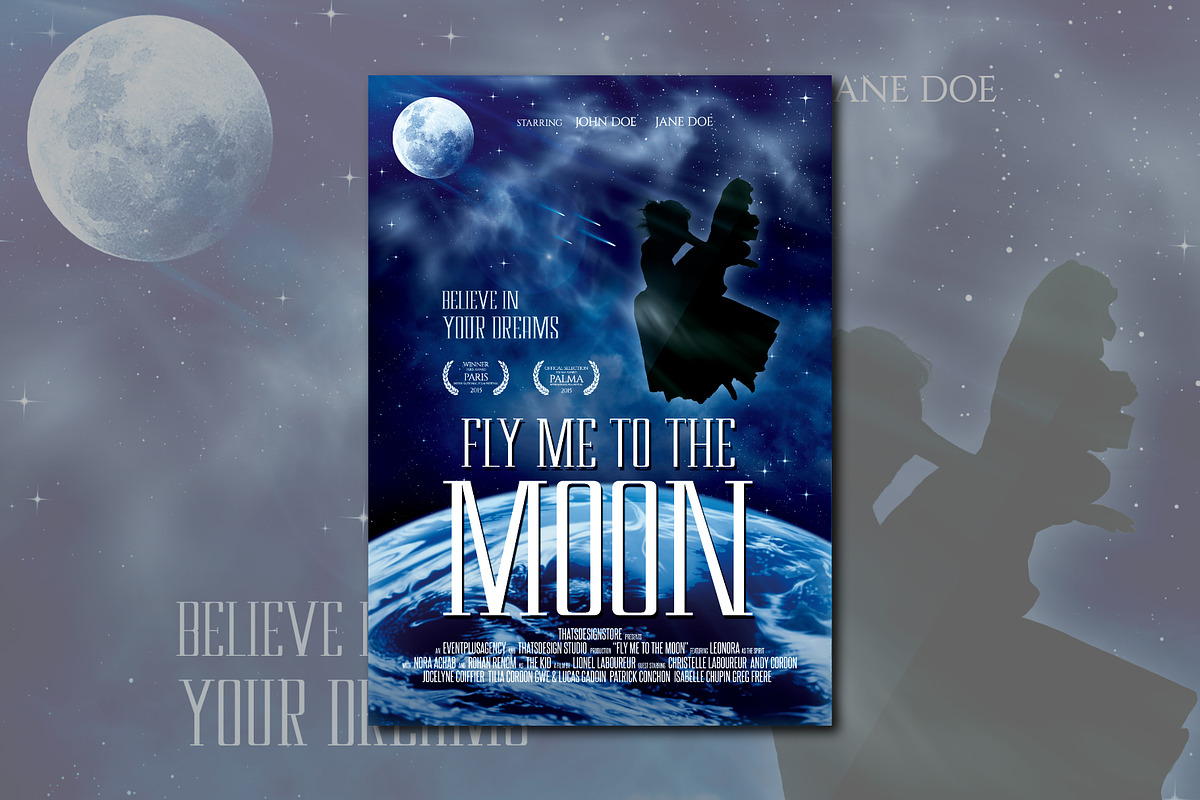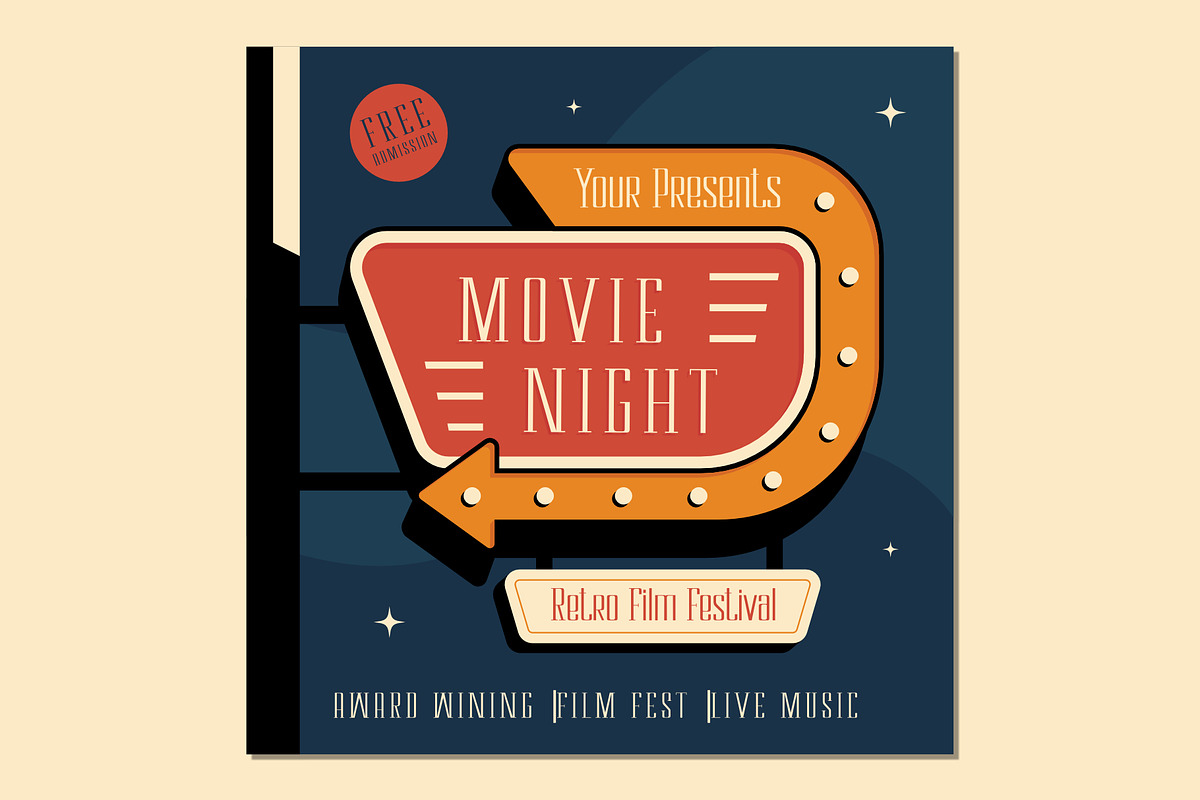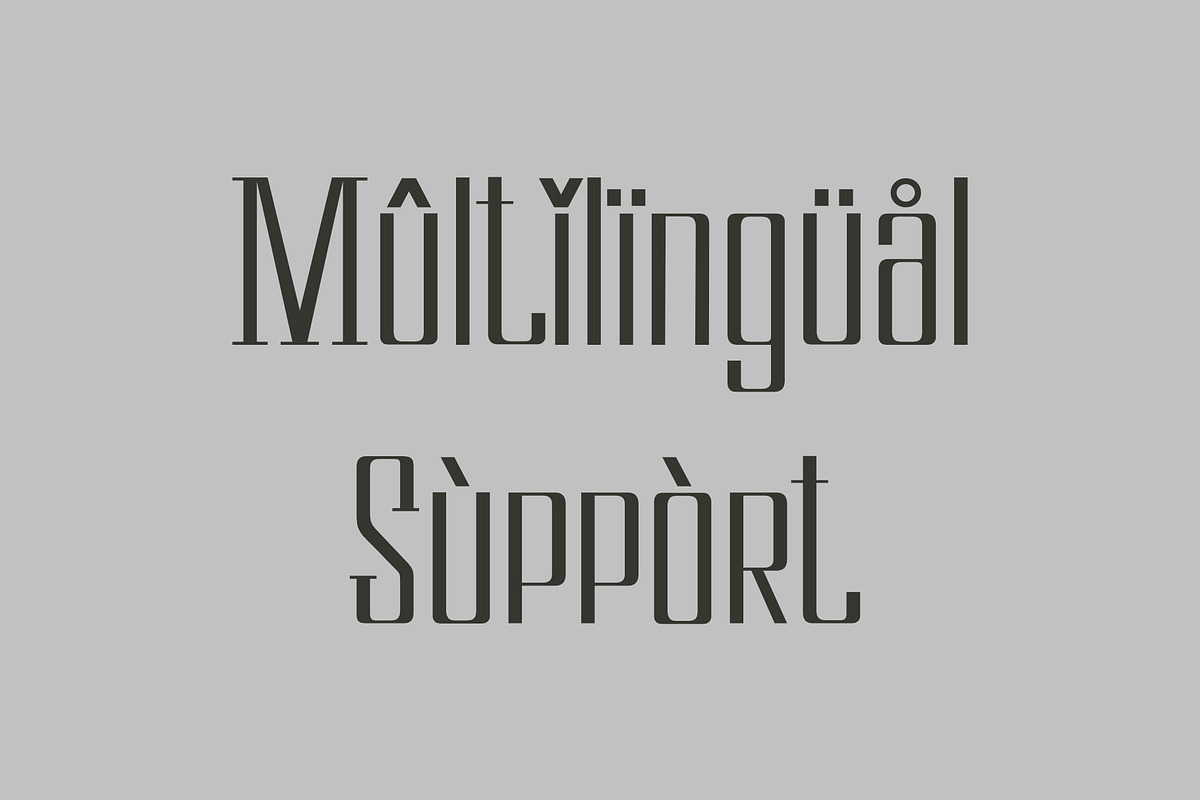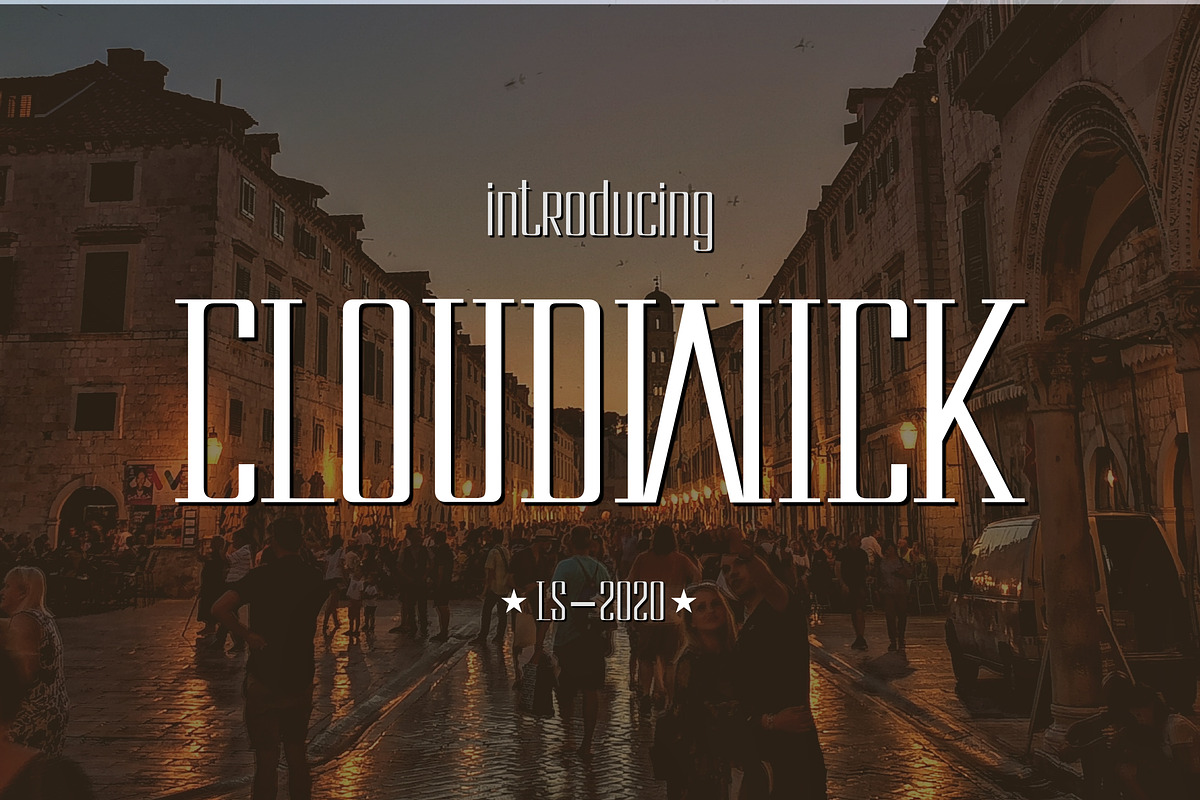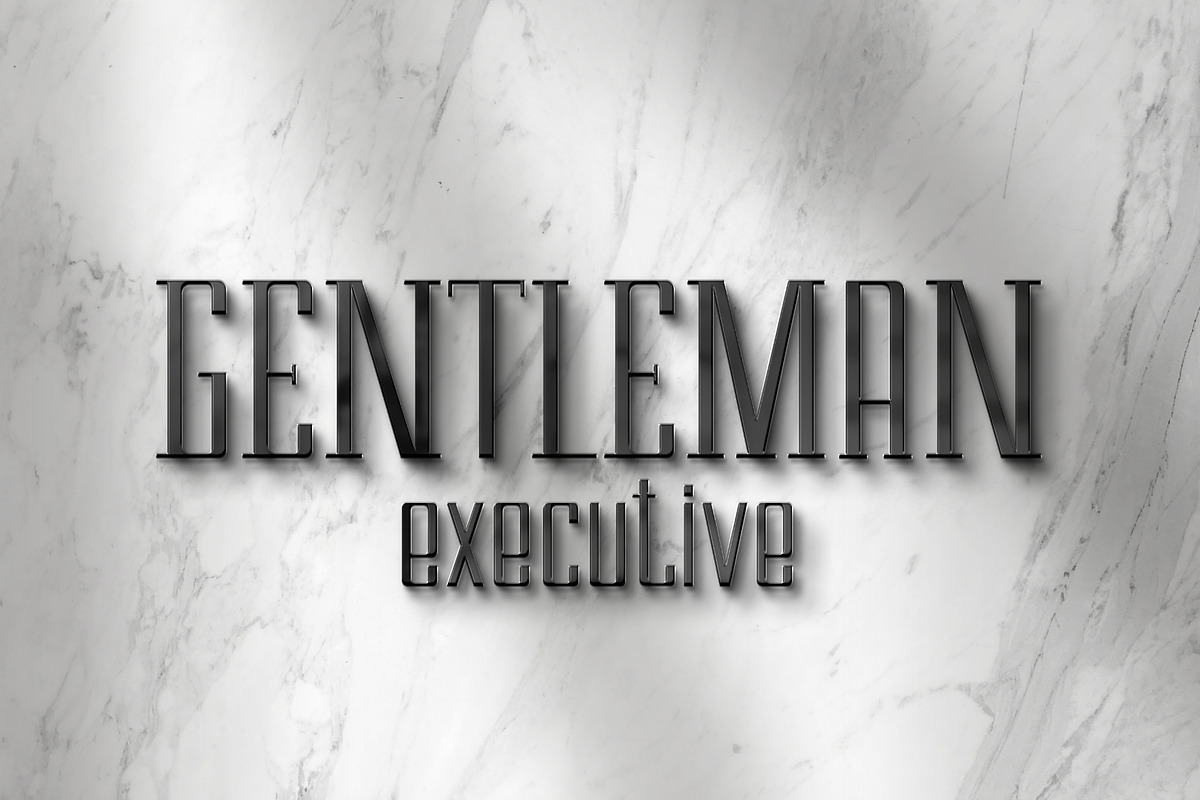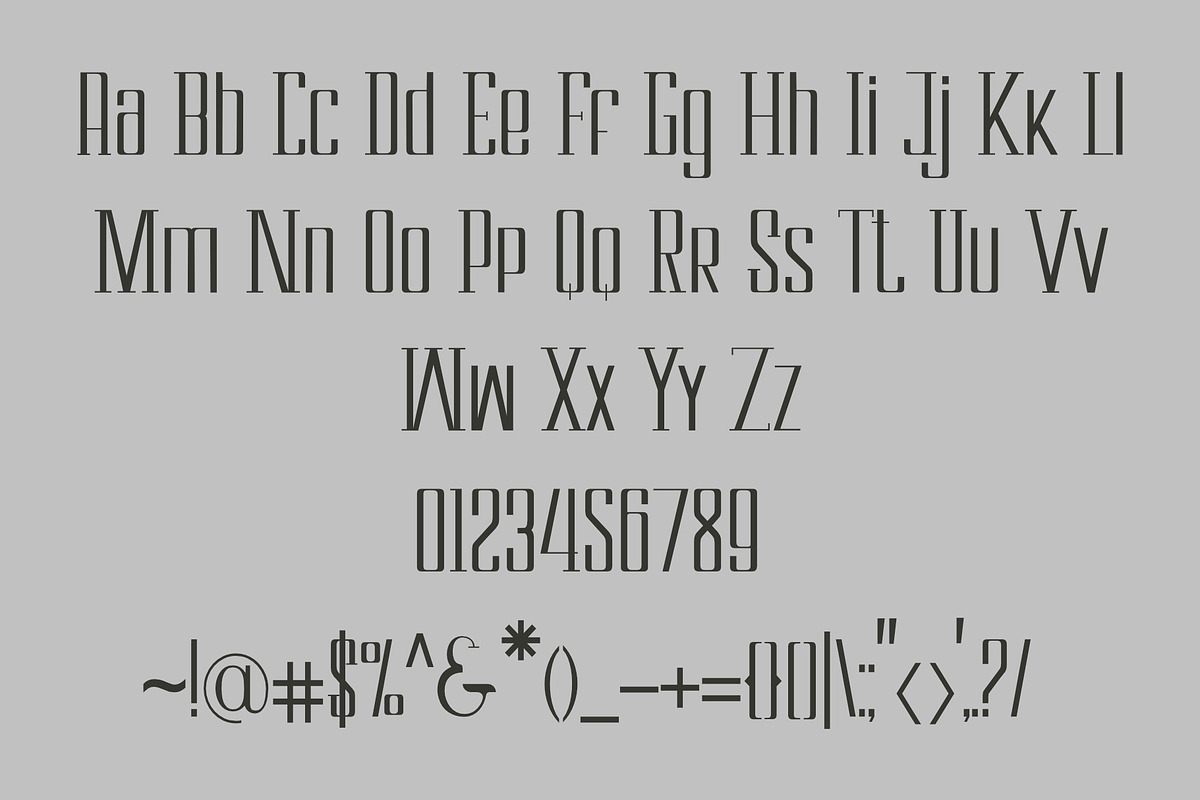
Cloudwick
Cloudwick Font
This pair was inspired by the ads poster design that i saw on some coffee shop, It was crafted by hand specially to add natural handmade feeling in its brand identity than i make it clean with pentool.
Opentype features Cloudwick font has 184 character set included Cricket Font is very good looking in logo, labels, t-shirt prints, product packaging, invitations, advertising and others.